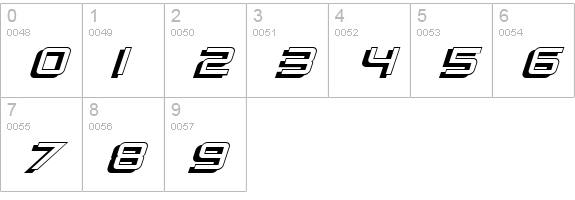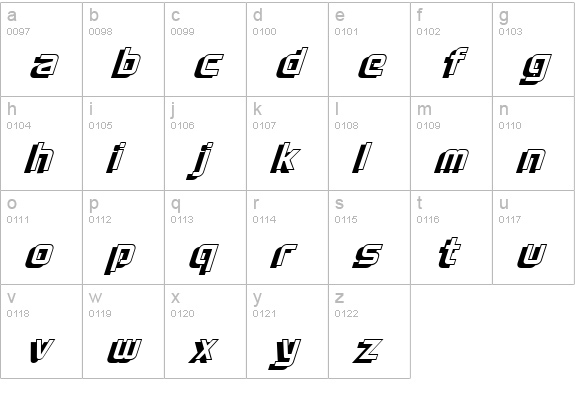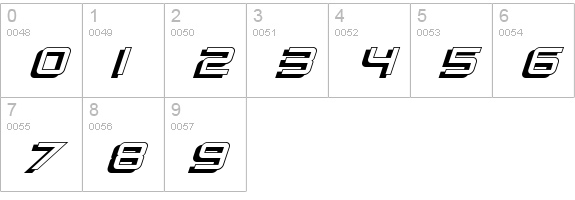
VentureShadowOblique Font Details
VentureShadowOblique is a captivating and innovative font that seamlessly blends the elements of adventure and mystery. Its unique and daring design features slanted and shadowed letterforms that exude an aura of thrill and excitement. With its sharp edges and edgy curves, this font is perfect for adding a touch of boldness and intrigue to any project. What sets VentureShadowOblique apart from other fonts is its versatility. Whether you're designing a poster for a thrilling movie, creating a logo for an adventurous brand, or crafting an eye-catching headline for a daring magazine spread, this font is sure to make a powerful impact. It effortlessly captures the essence of exploration and the thrill of the unknown, making it an ideal choice for projects that demand attention and evoke a sense of curiosity. One of the most remarkable aspects of VentureShadowOblique is that it is freely available to download at FontsMarket.com. This means that you can easily access this captivating font and incorporate it into your designs without any hassle. The availability of this font for free ensures that designers from all walks of life can enjoy the versatility and striking allure of VentureShadowOblique, without any limitations or restrictions. So, if you're looking to add an element of adventure and excitement to your designs, look no further than VentureShadowOblique. Its daring and captivating design, combined with the fact that it is freely available to download at FontsMarket.com, makes it the perfect choice for any project that demands a touch of boldness and intrigue. Get ready to embark on a design journey like no other with VentureShadowOblique.